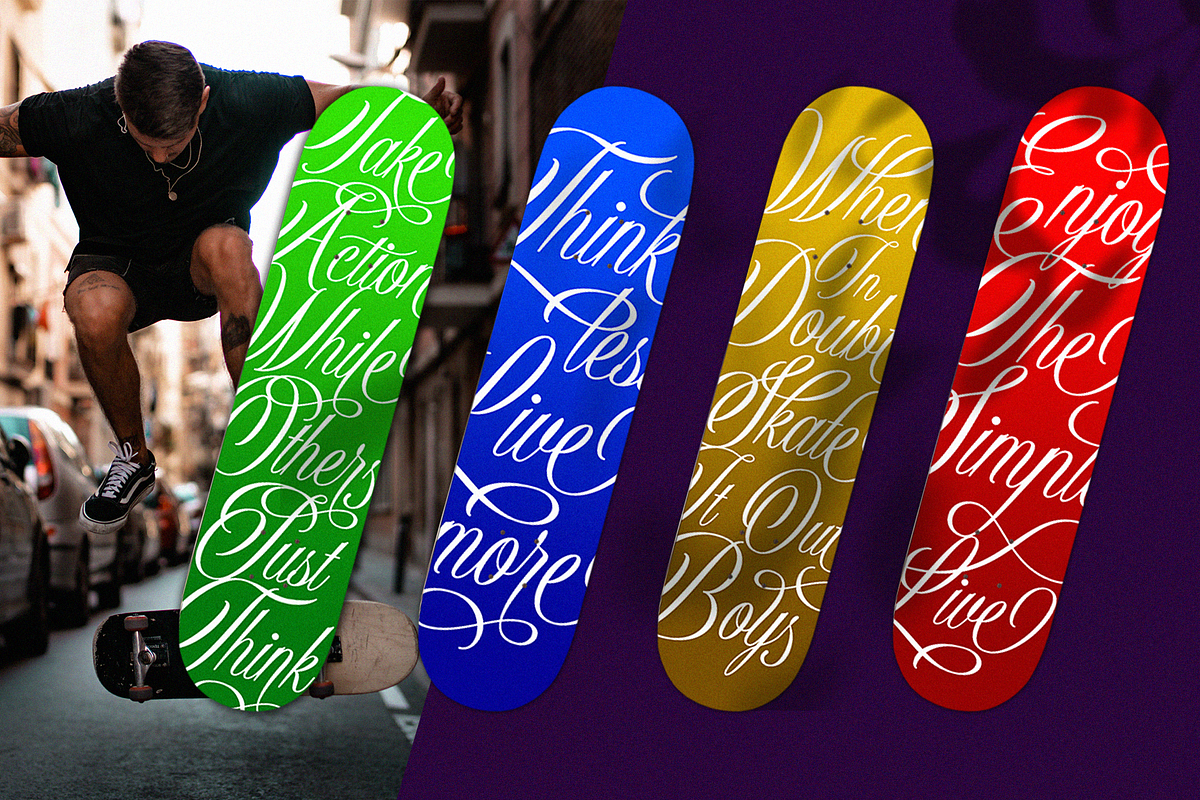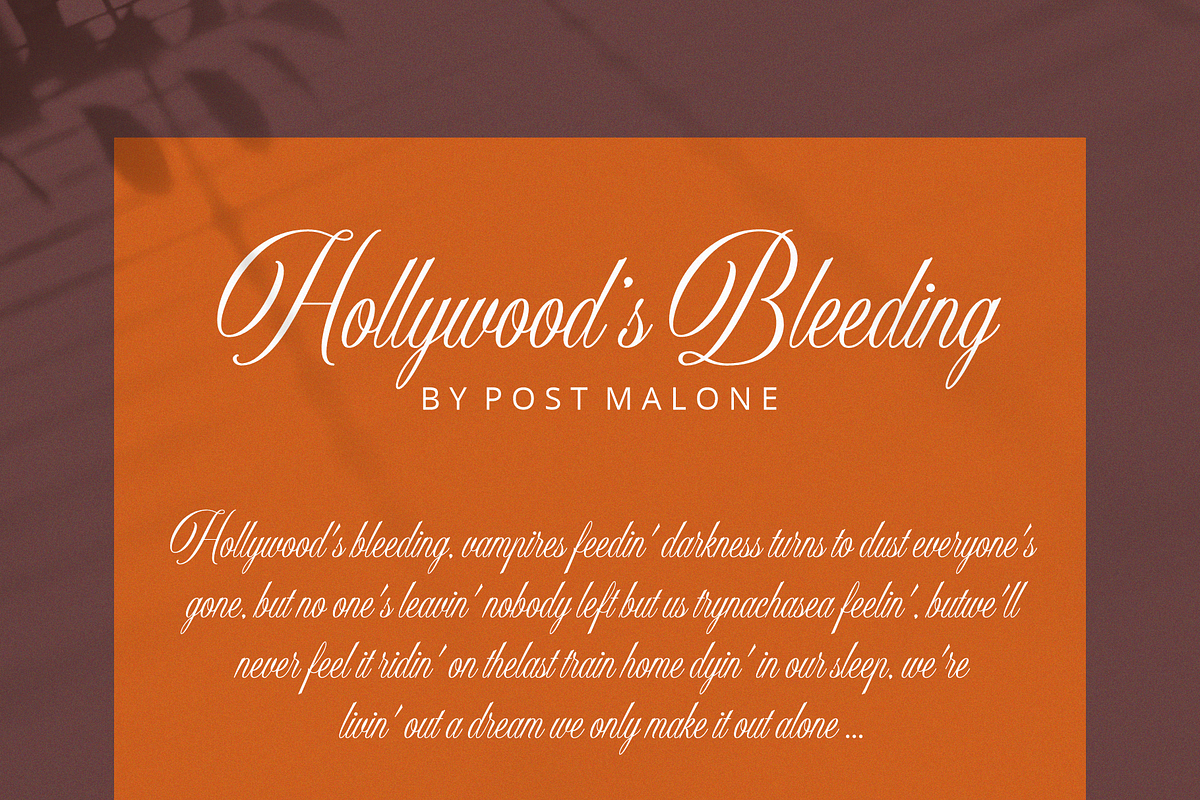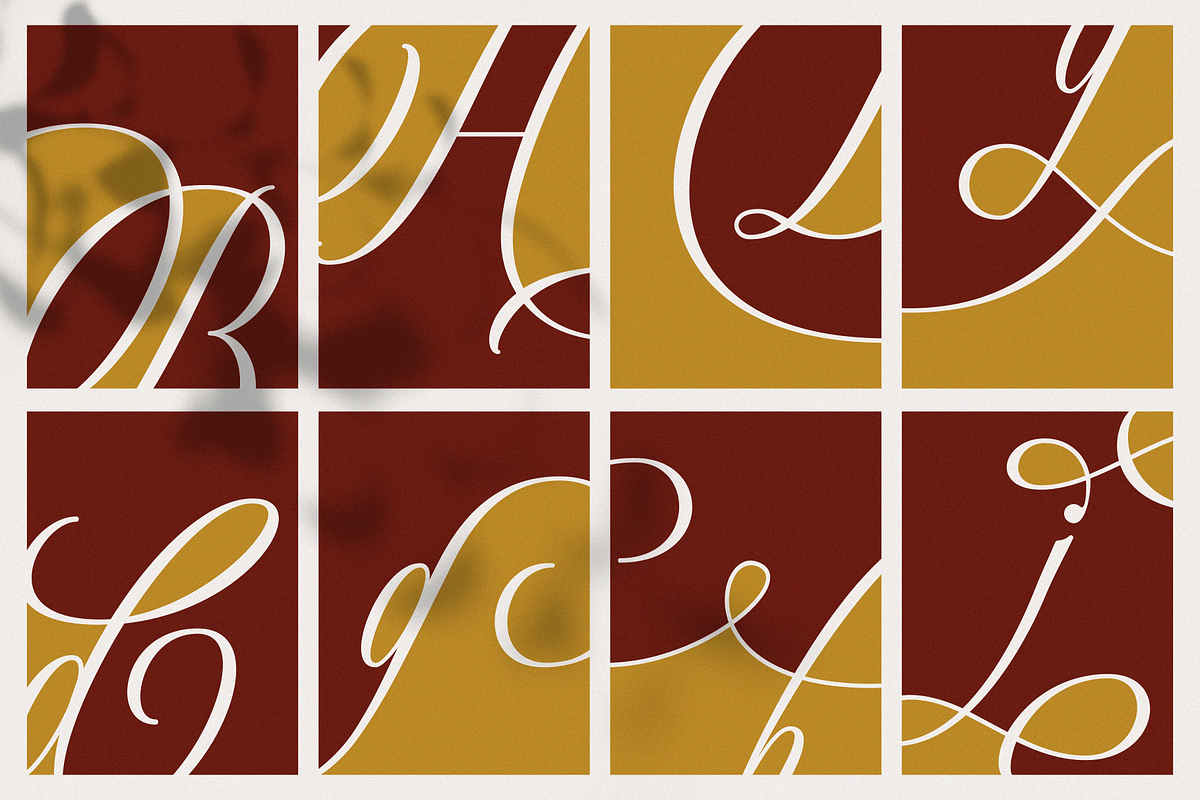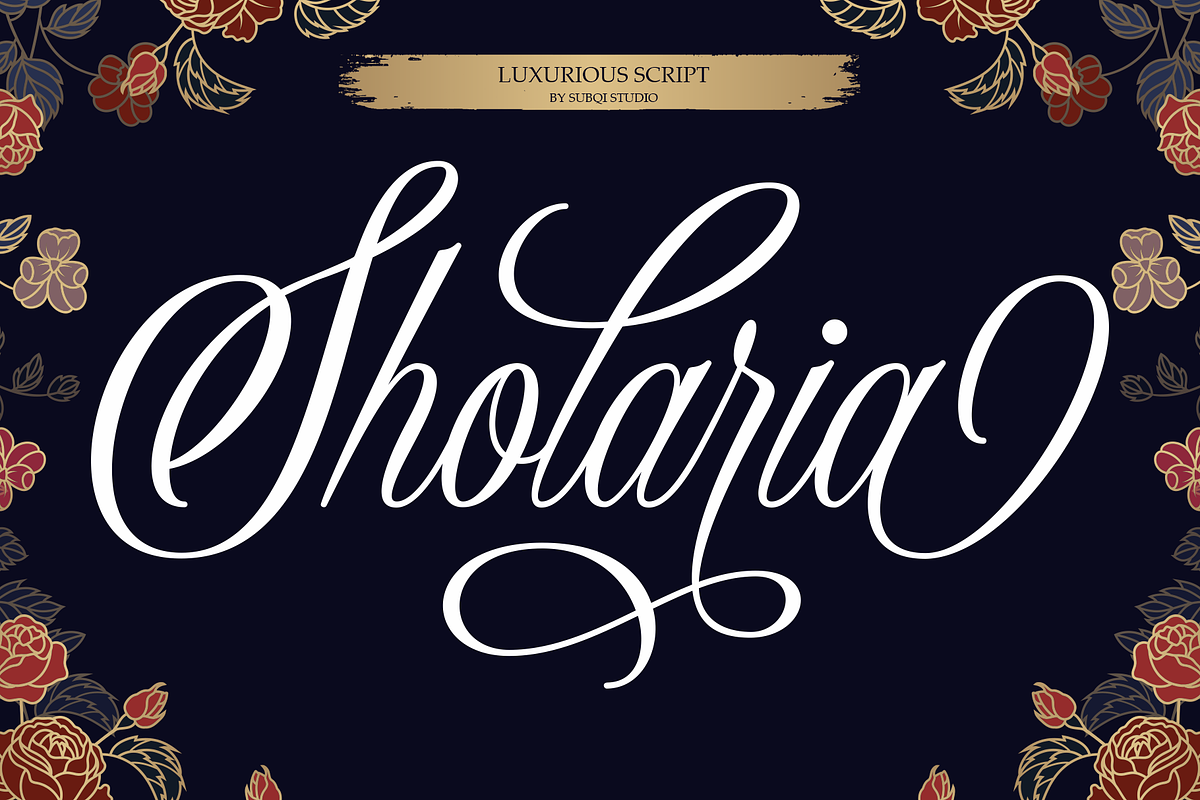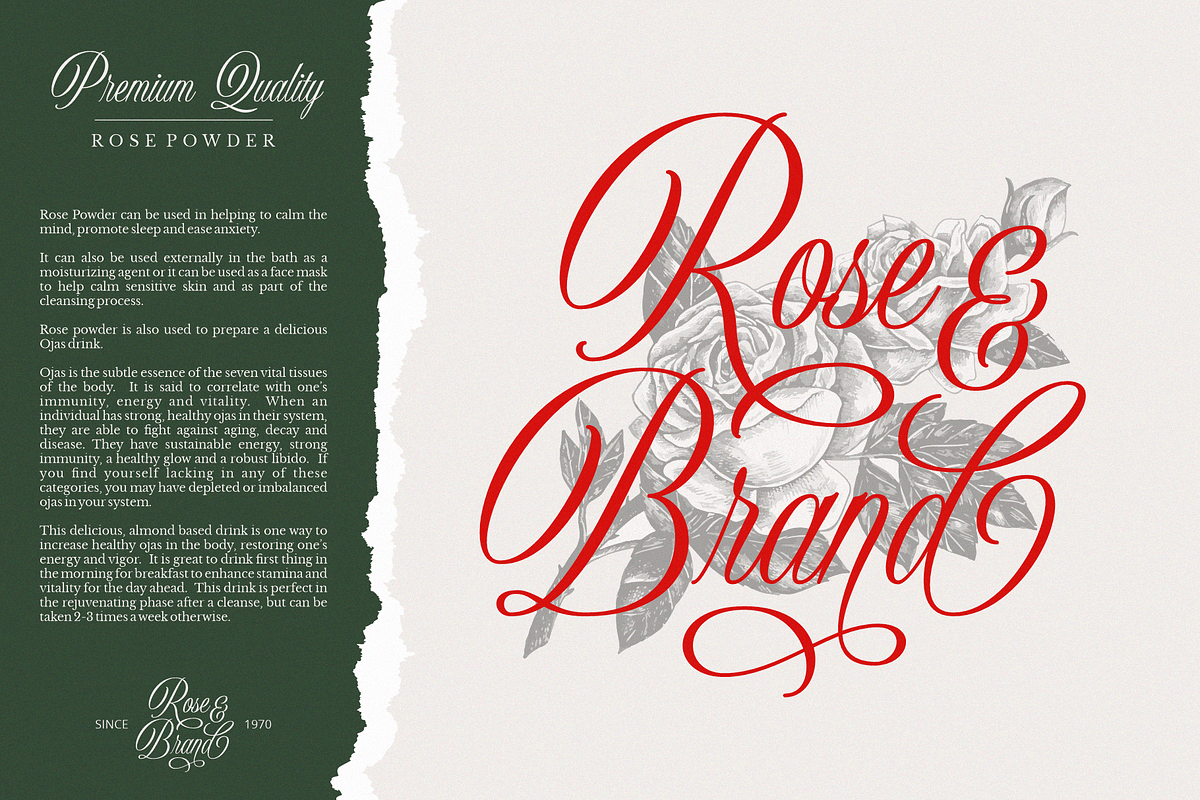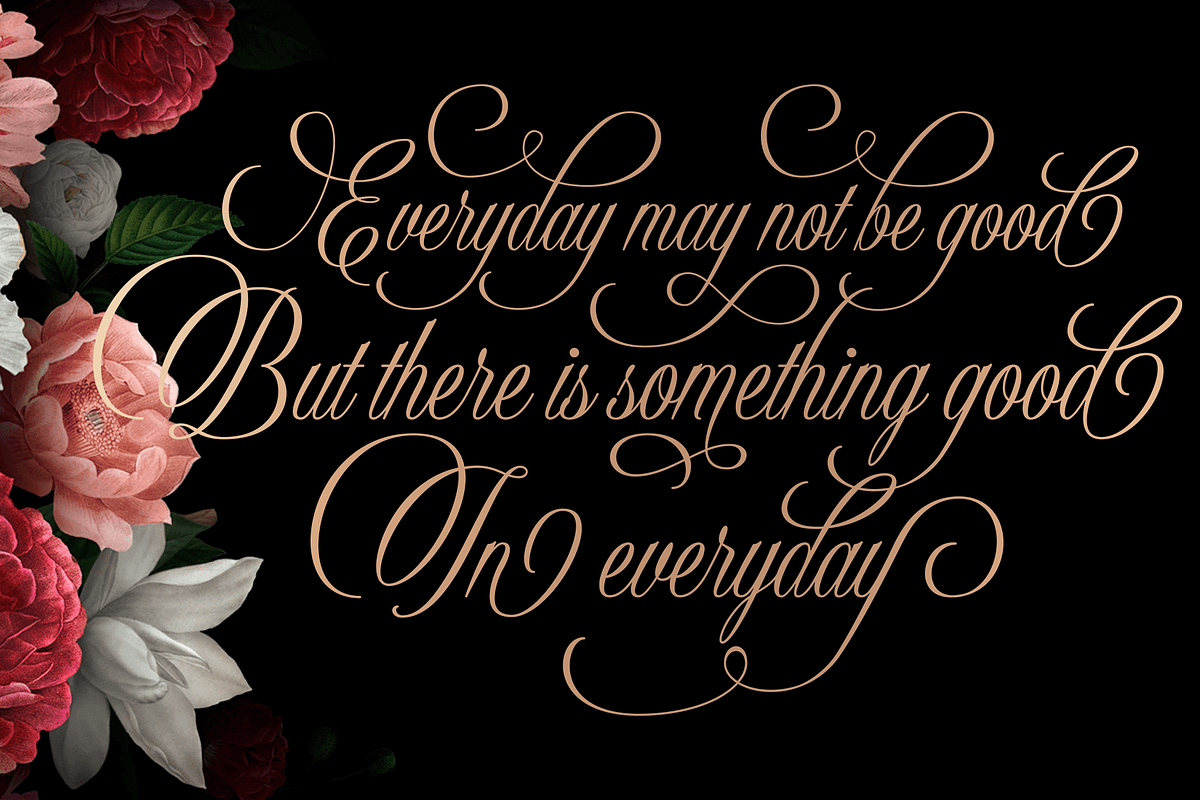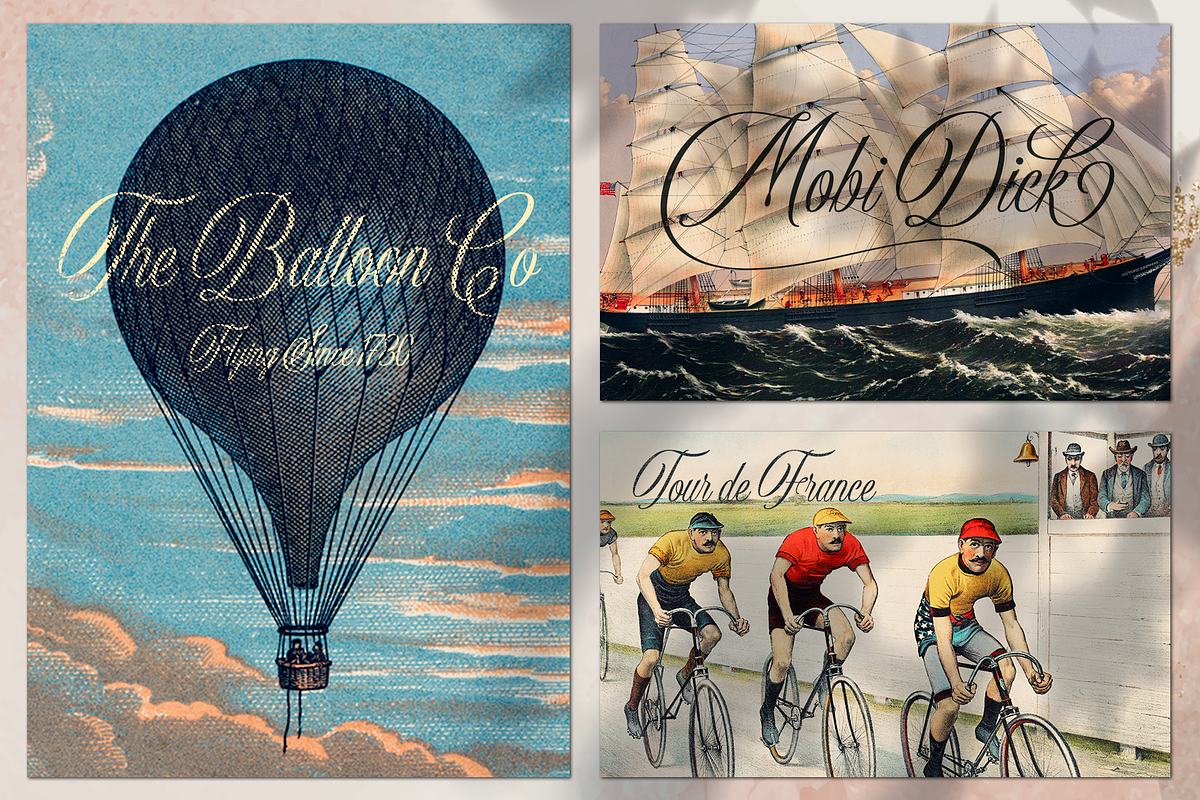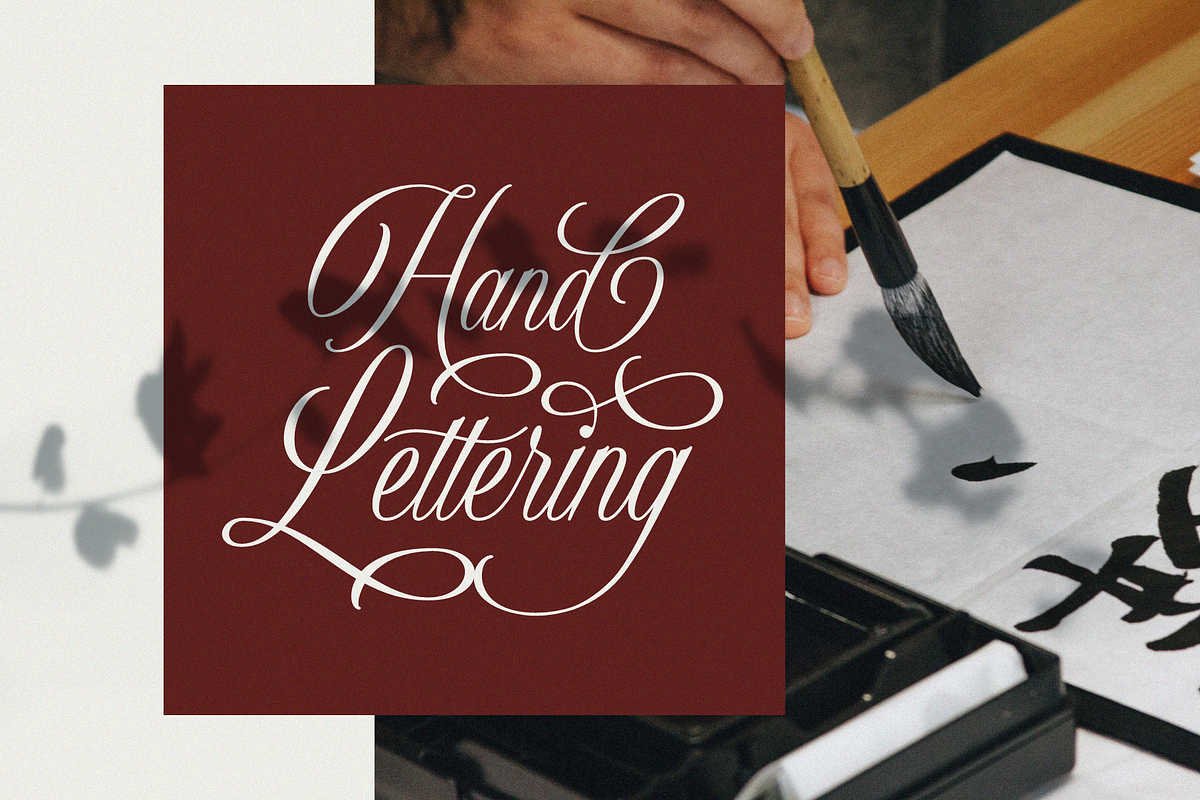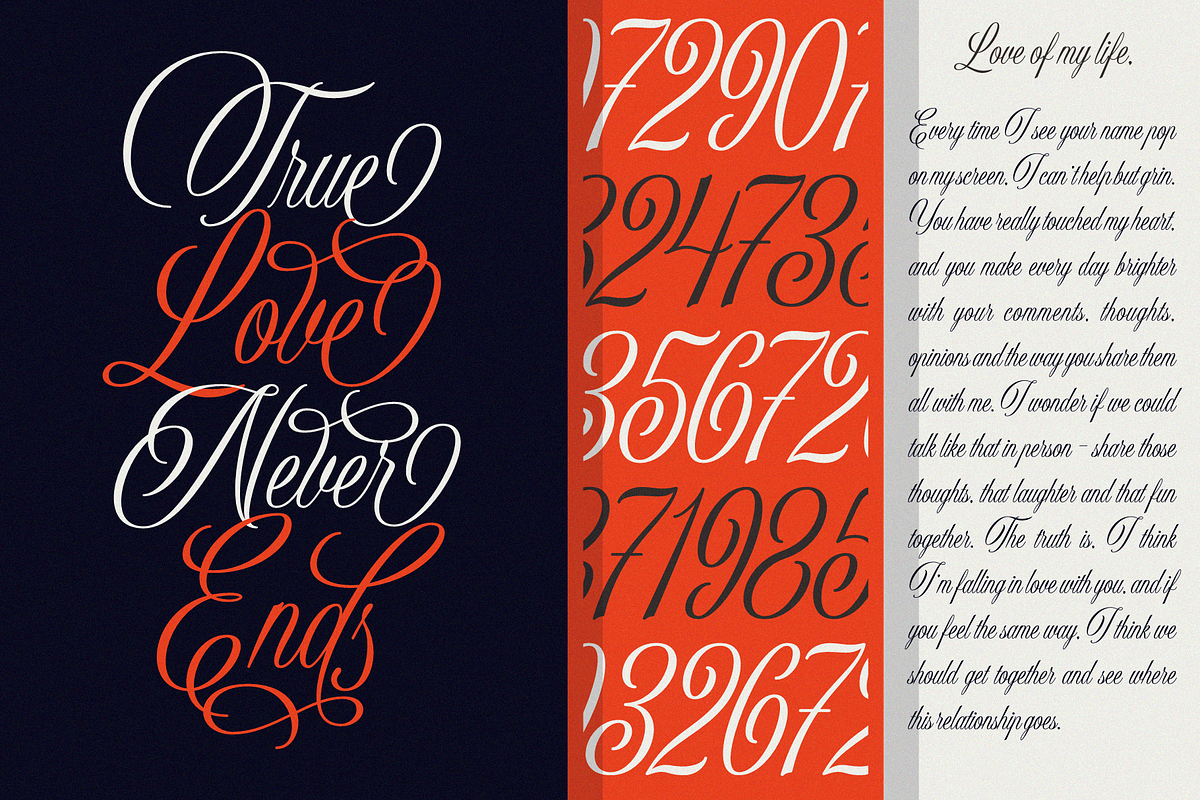
Sholaria
Sholaria designed to be a clean and luxurious display script font. Inspired by vintage copperplate style. Carefully made for the best 'flow' result. Came with seamless connection each others . Ton of 'necessary' swash alternates to playing with, around 400 glyphs total. This font will suitable for your any project. Branding, quotes, headlines, romantic letters and many more.
WHAT INSIDE
- Ligatures ✔
- Stylistic Alternates ✔
- End Swash by 1 & 2 Alternate ✔